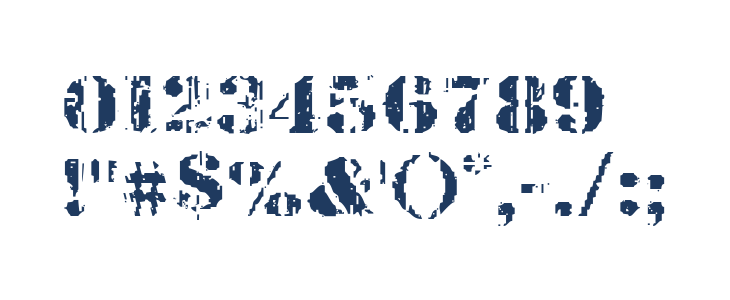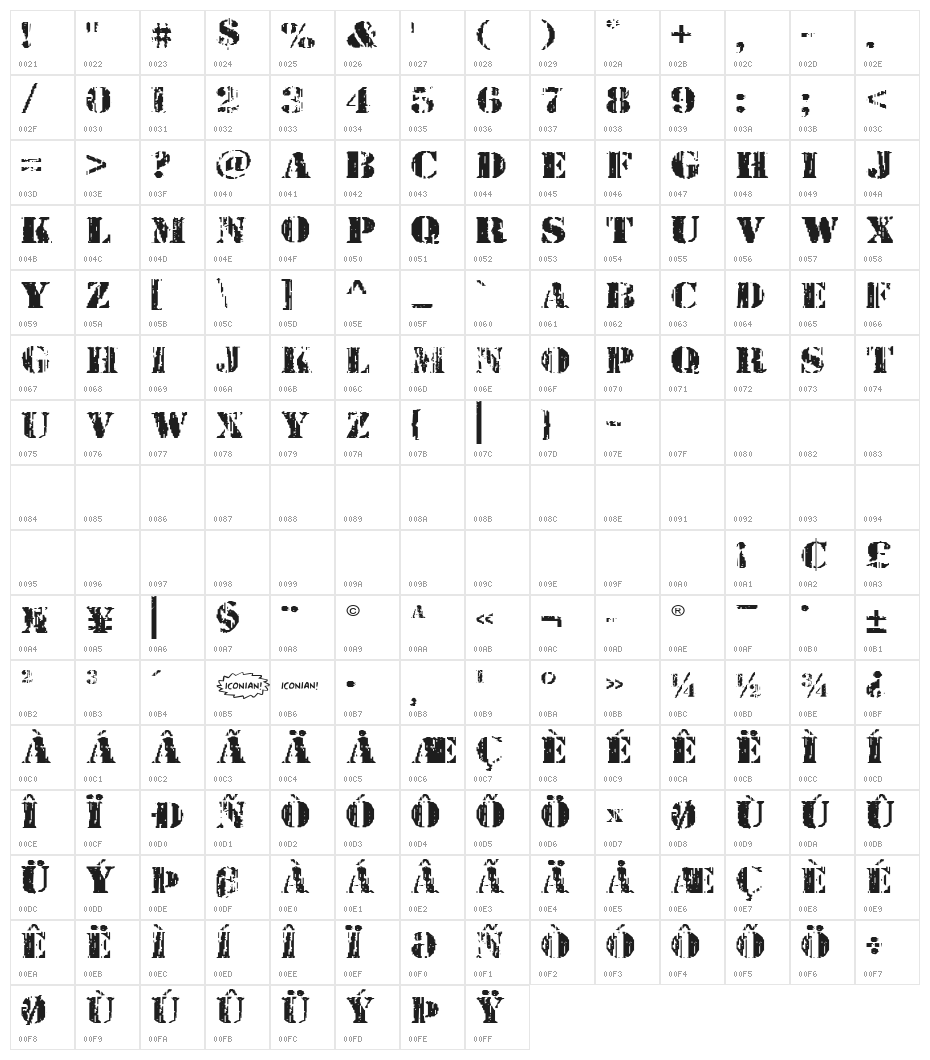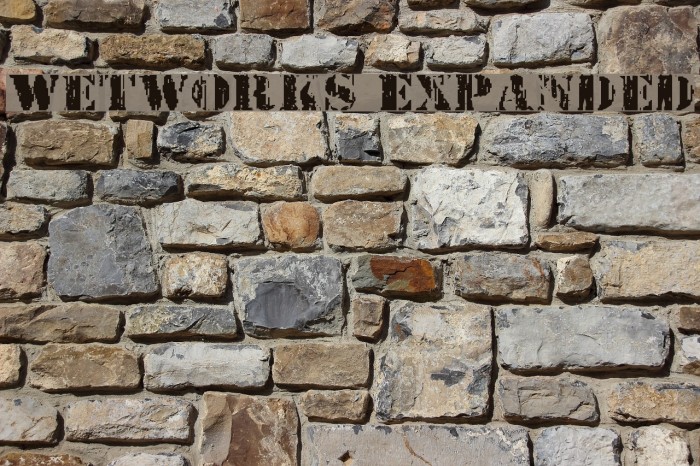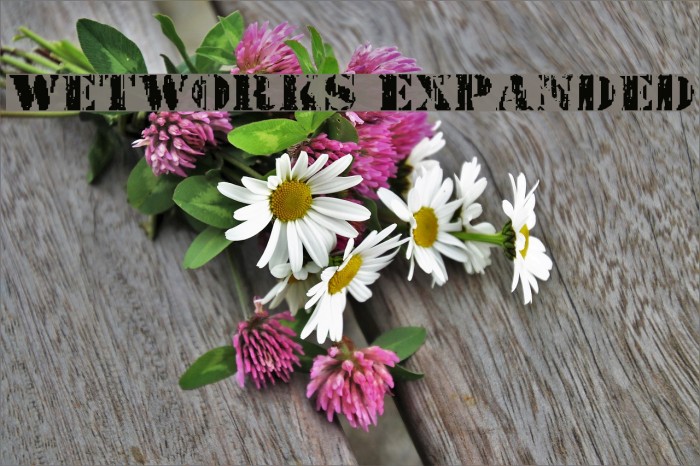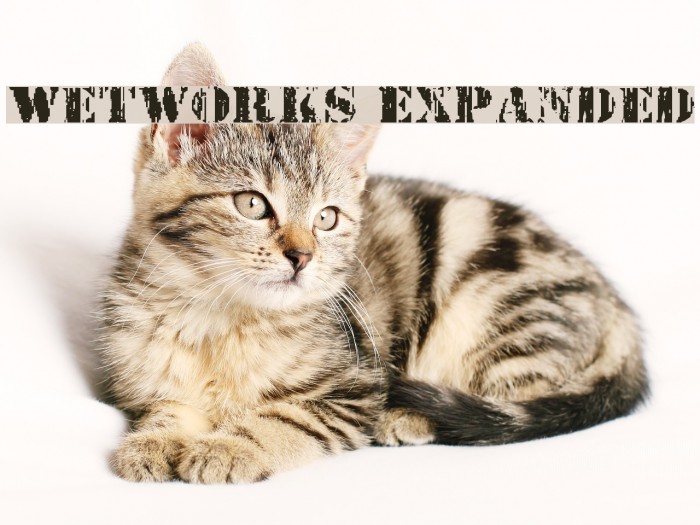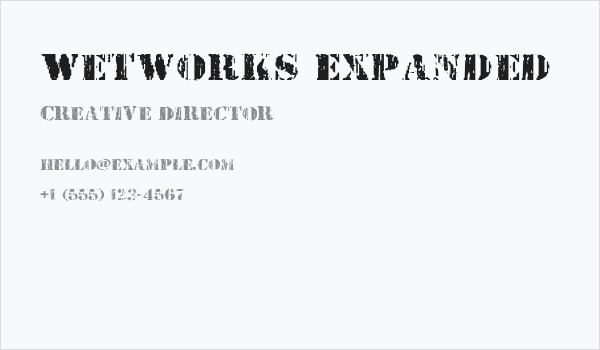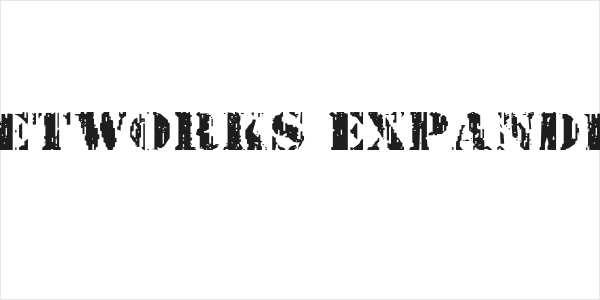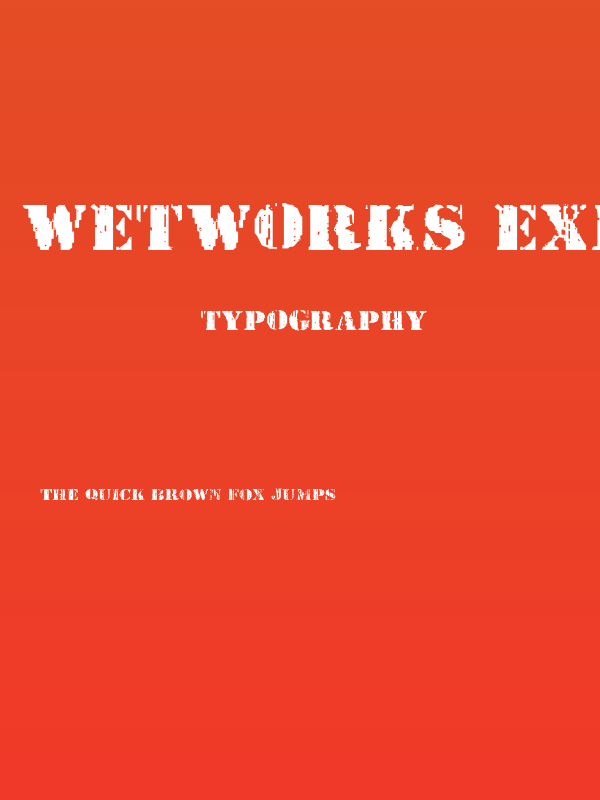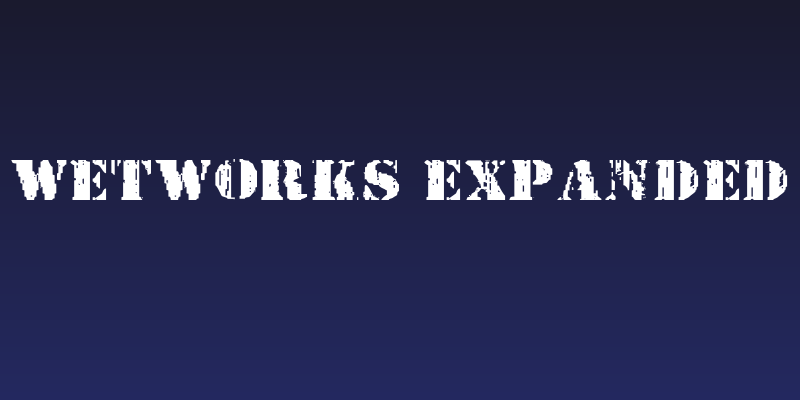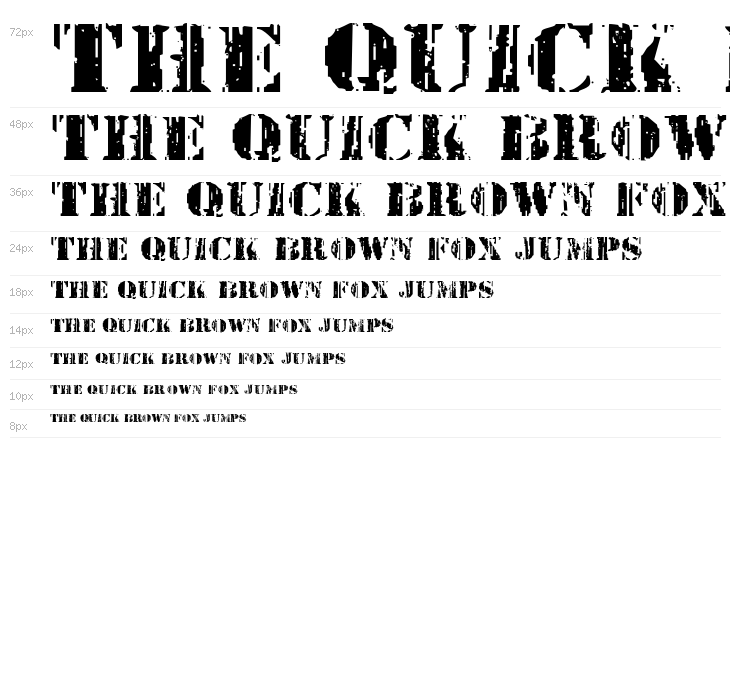
Wetworks Expanded Font
Wetworks Expanded Description
This font features a bold and distressed style, reminiscent of stencil or grunge aesthetics. The characters are heavily textured, giving them a worn and rugged appearance. The uppercase and lowercase letters maintain a consistent height, while the numbers and special characters follow the same distressed pattern. This font's unique style makes it stand out, suitable for projects that require a bold statement or an edgy, urban feel. The texture adds depth and character, making it ideal for designs that aim to convey a sense of rawness or authenticity.
| Overall Style | Grunge, Urban, Edgy |
| Proposed Projects | Ideal for posters, album covers, streetwear branding, and urban-themed designs. |